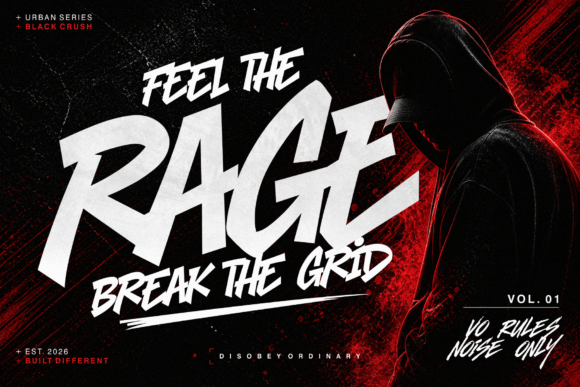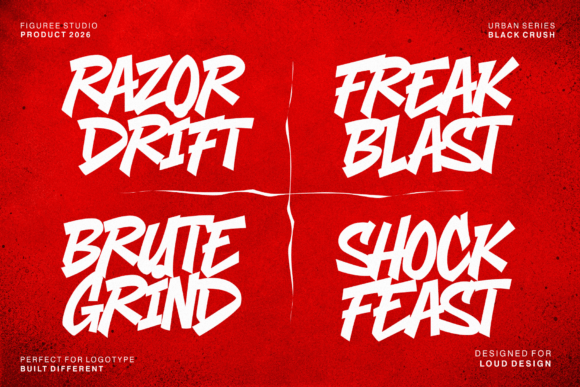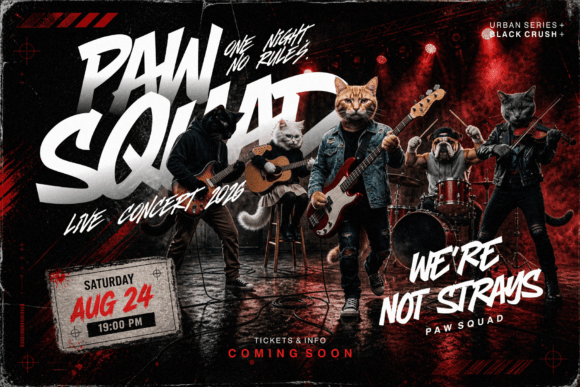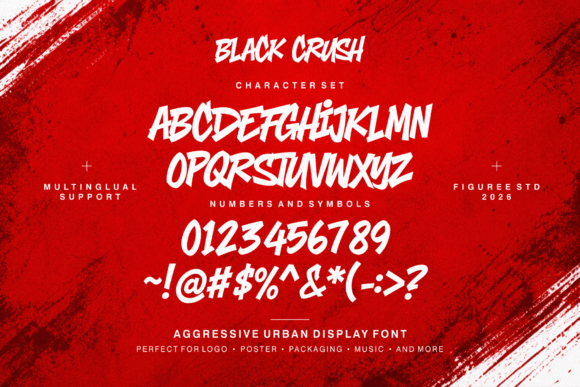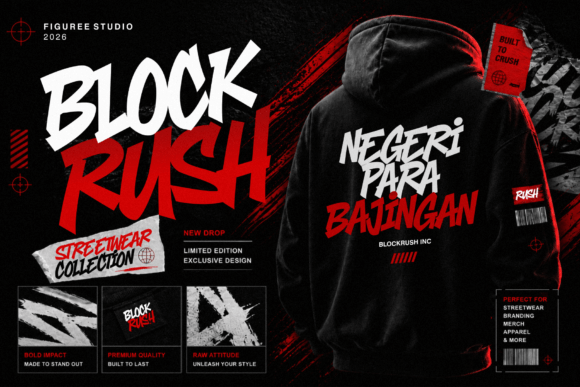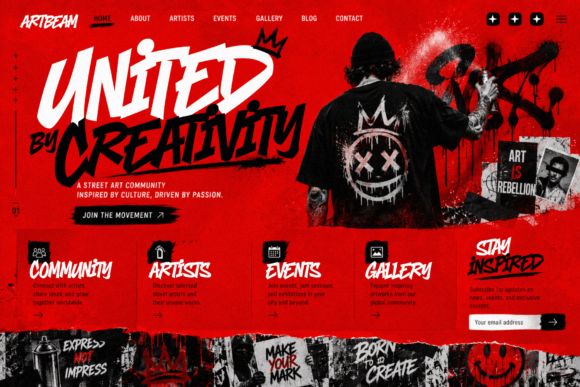
The Perfect Storm of Typography: Unleashing the Black Crush Font
As a designer, there’s nothing quite like the rush of creating a visual masterpiece that stops people in their tracks. You’re experimenting with different fonts, colors, and layouts, but something’s missing – that X-factor that elevates your design from good to great. This is where the Black Crush Font comes in, a bold and energetic typeface designed to deliver high-impact results across digital and print layouts.
With its aggressive style and sharp character shapes, the Black Crush Font is perfect for projects that demand strong visual attention. Whether you’re working on posters, video thumbnails, music artwork, or esports graphics, this font is sure to create tension, movement, and intensity without sacrificing readability. As a designer, you’ll appreciate the versatility and value that the Black Crush Font brings to your creative work.
- Unique Characteristics: Black Crush Font features a distressed, grungy aesthetic with a touch of nostalgia, making it perfect for designs that require a vintage or retro feel.
Black Crush Font Review
I’ve had the chance to work with the Black Crush Font and here’s my honest review.
The Black Crush Font has a sleek and modern design that makes it perfect for creating a bold and edgy look. It’s great for headings and titles, adding a touch of sophistication to any design project.
- Unique and stylish design
- Perfect for headings and titles
- Works well in digital and print media
While the Black Crush Font is a great addition to any design project, it does have some limitations.
- May be difficult to read in small sizes
- Not ideal for body text, due to its bold and condensed design
- May require additional styling to make it legible in certain contexts
Overall, the Black Crush Font is a great choice for designers looking to add a touch of modernity and sophistication to their projects. While it may have some limitations, its unique design and stylish look make it a great addition to any design library.
The Black Crush Font is commonly used in:
- Grungy or distressed designs
- Edgy or industrial-style branding
- Dark or moody-themed graphics
Getting the Most Out of Black Crush Font
To get the most out of the Black Crush Font, try:
- Combining it with other distressed or grungy fonts
- Adjusting the font size and color to create contrast
- Using it in conjunction with bold or italic styles
The Great Vibes Font is a modern script font that can be used for titles, headings, and quotes. It has a unique, hand-written feel that can add a touch of elegance to any design. Great Vibes Font is more elegant and less edgy compared to Black Crush Font.
The Alex Brush Font is a elegant script font that is perfect for designs that require a touch of sophistication and refinement. It has a more refined and polished feel compared to Black Crush Font, making it ideal for luxury brands and high-end designs.
The Pacifico Font is a beautiful, modern script font that is perfect for designs that require a touch of relaxation and calmness. It has a more laid-back and casual feel compared to Black Crush Font, making it ideal for designs related to travel, wellness, and lifestyle.